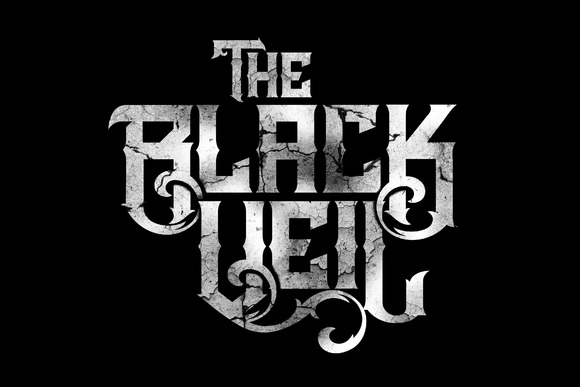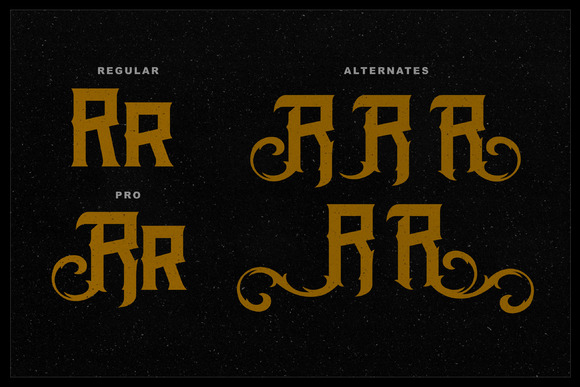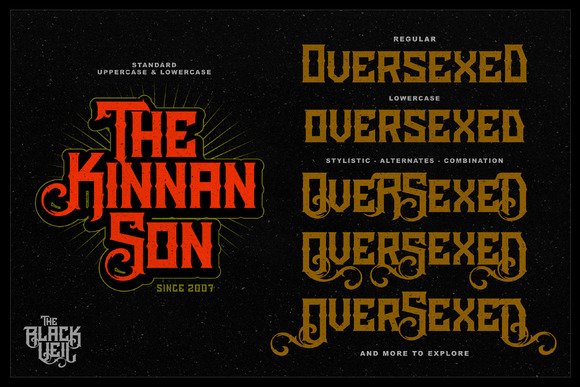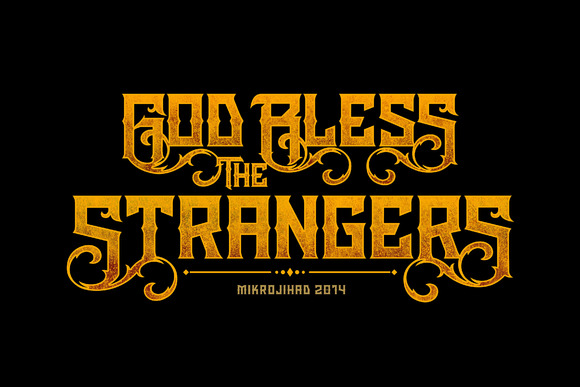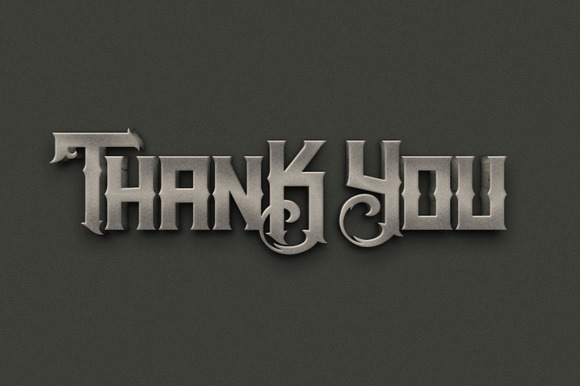
The Black Veil Font
About The Black Veil Font
The Black Veil font family is a collection of fonts that bring together the historical charm of blackletter typography with a modern twist. Each font in the family is crafted with meticulous detail, showcasing a tough and rough aesthetic that commands attention. Whether it’s for apparel, branding, or display purposes, The Black Veil fonts offer a unique blend of tradition and innovation.
A Closer Look at the Variants
• The Black Veil Pro: The flagship font of the family, offering the fullest expression of the blackletter style with added sophistication.
• The Black Veil Regular: A more accessible version, perfect for those seeking the blackletter aesthetic in a slightly simplified form.
• The Black Veil Alternative 1, 2, & 3: These versions serve as creative companions to the regular and pro versions, allowing for a vast array of customization options. They enable designers to alter specific letters and incorporate decorative elements, enriching the overall design.
Designed for Creativity and Impact
The Black Veil is not just a font; it’s a design tool that unlocks endless possibilities for creativity. Its alternative versions are particularly noteworthy for their ability to mix and match with the regular and pro versions, offering almost limitless combinations for designers. Whether you’re looking to add a unique touch to apparel, create standout branding materials, or craft eye-catching displays, The Black Veil font family provides the versatility and aesthetic appeal to make your projects shine.
Bringing Projects to Life with The Black Veil
Imagine a line of t-shirts, each emblazoned with quotes that strike a chord, or hats that carry messages with an edge. The Black Veil font family is perfectly suited for such apparel projects, where its detailed and rugged look can truly come to life. Beyond apparel, this font family excels as a display font, whether for concert posters, album covers, or even book titles, offering a distinctive presence that captures the viewer’s attention.
In conclusion, The Black Veil font family by MikroJihad stands as a beacon of creativity in the realm of typography. Its detailed, tough, and versatile design, coupled with the ability to customize through alternative versions, makes it a priceless asset for designers seeking to push the boundaries of their creative projects. Explore the endless possibilities with The Black Veil font family and let your designs speak volumes.